30+ Wedding Wishes Quotes to Wish the Happy Couple
Wedding wishes and heartfelt quotes are meaningful ways of celebrating one of life’s most significant moments. The right words have the power to honor the couple and leave a lasting impression. This article explores a collection of wedding wishes quotes to help you express your congratulations with sincerity and warmth.
Romantic Wedding Wishes Quotes
- You’ve gone from wondering, ‘What should I text them?’ to standing at the altar, and I couldn’t be more excited for what lies ahead for you both.
- Sending you all the love, happiness, and joy as you celebrate your wedding and step into your new life as one.
- Thank you for inviting me to be part of your big day and allowing me to witness such a genuine, lasting love.
- Congratulations to the newlyweds! May the years ahead bring you lasting happiness and a beautifully fulfilling life together.
- Wishing you a lifetime of choosing, supporting, and loving one another, day after day.
- Congratulations on finding and marrying the one who completes you. Wishing you lifelong happiness as you journey forward together.
- I send warm wishes as the seed of love you’ve planted today blossoms into a life filled with happiness.
Casual and Funny Wedding Quotes
- Here’s to a marriage that’s every bit as enjoyable as that free bar tonight! (Kidding… mostly.)
- I always knew you two were crazy about each other, just didn’t expect you to be crazy enough to actually get married. Wishing you an amazing life together.
- When did we suddenly become adults who get married? In my head, it’s still 2012. Congrats, you two!
- Congratulations! You’ve secured a lifelong partner to help you find your phone every single day.
- Getting married is like signing up for drama school. May your story be filled with more humor than theatrics.
- Marriage is like your favorite pair of jeans. It might feel a bit tight after a big dinner, but as long as the seams hold, you’re good! Wishing you a love that’s as durable as denim and elastic enough for all the ‘growth’ ahead.
- May your days be filled with happiness, patience, and only as many throw pillows as your sofa can handle.
Blessed Wedding Wishes Quotes
- Praying that your journey together is blessed with unwavering love and constant joy.
- Wishing you a marriage where each day becomes a reminder of your devotion to one another and to God.
- As you start your journey as a married couple, know that God will be with you through every step and season.
- May God’s blessings fill your union, giving you both the courage and grace to overcome whatever comes your way.
- Love truly conquers all, and we’re thrilled to celebrate your union as you say “I do” before God. Congratulations on your wedding!
- Praying that God deepens your bond and surrounds your life together with unbreakable faith.
Couple Quotes for Wedding about Love and Commitment
- Being committed means honoring what you vowed to do, even when the original emotion behind it has passed.
- The greatest kind of love is the one that stirs your soul, inspires you to grow, ignites your heart, and settles your mind in peace.
- I love you for everything you are, everything you’ve been, and everything you’re on your way to becoming.
- I only need a minute with you to find a thousand little things that make me fall even more in love.
- Marriage isn’t a noun but an action. It’s not about what you receive, but what you continually do through daily love and commitment.
- Being someone’s first love is special, but being the one they choose forever is truly perfect.
Wedding Short Quotes
- Once in a while, during the most ordinary days, love turns everything into a fairytale.
- You realize he’s the one when your smile isn’t just on your lips, but radiates from your heart.
- You marry not the person you can simply get along with, but the one you can’t picture your life without.
- Loving you is a timeless journey, one that starts forever and never reaches an end.
- Even a hundred hearts couldn’t hold all the love I have for you.
Elevate Your Wedding Cards with Stunning Visual Design
As you wrap up your search for the perfect wedding wishes, elevate your message with a beautifully crafted visual touch. Explore a curated collection of high-quality fonts below and make your wedding card quotes and wishes unforgettable.
1. Alessa Gabriel
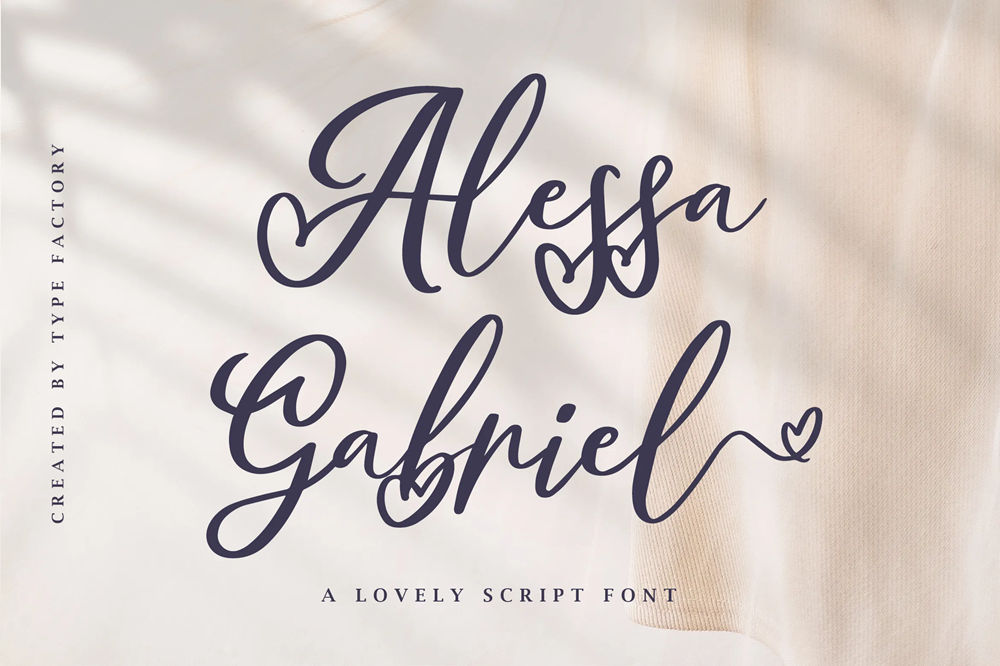
Alessa Gabriel is an elegant, classy script font that adds a refined, romantic touch to any wedding card design.
2. Circle Love
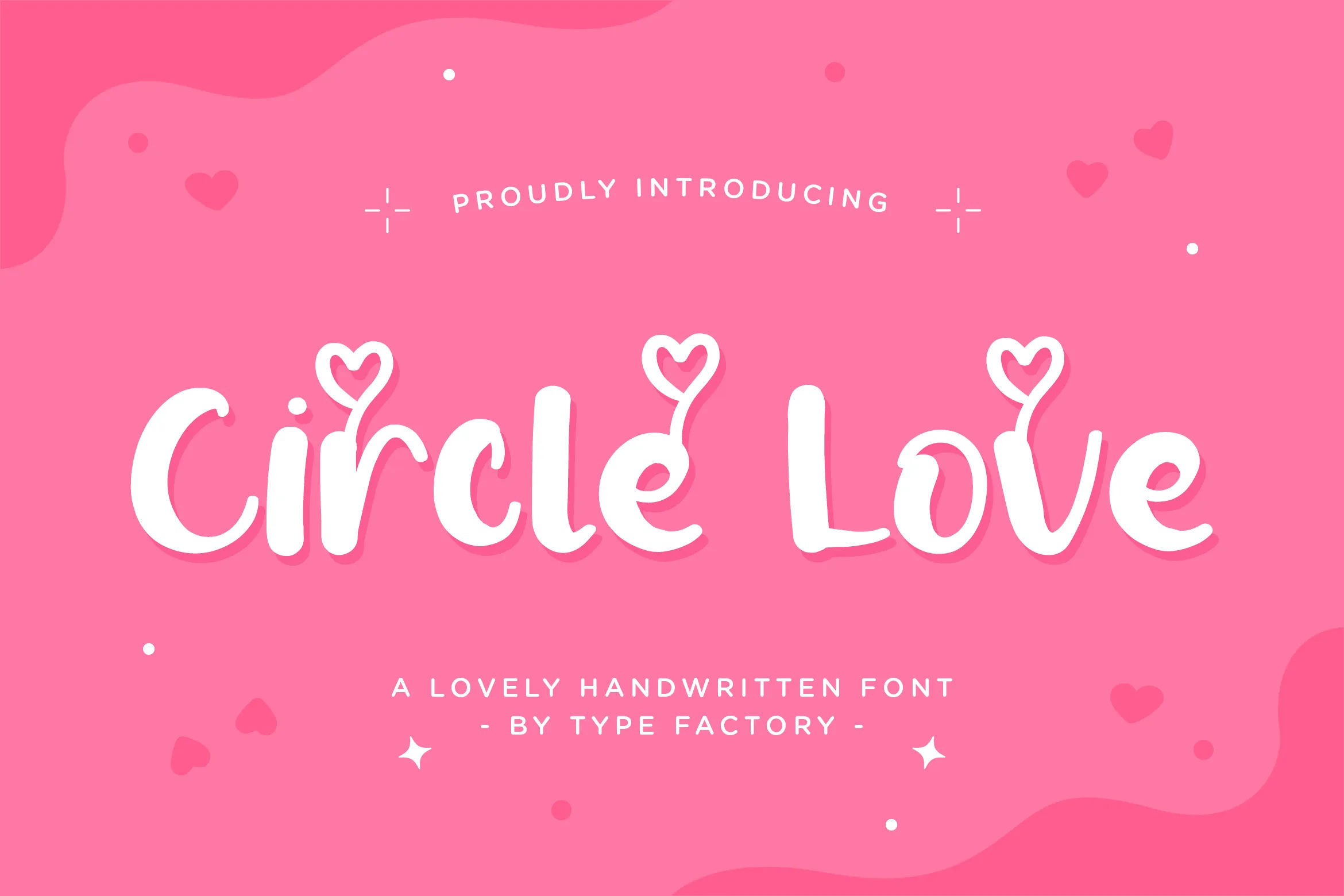
Circle Love is a beautiful handwritten typeface that brings a natural, elegant touch to any wedding card design.
3. Pinasta
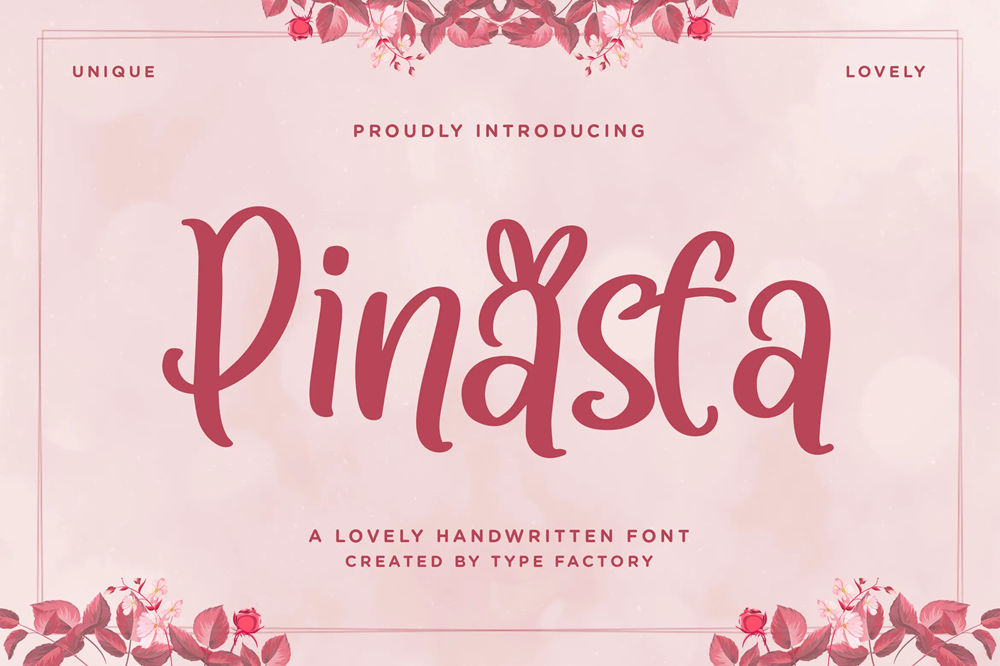
Pinasta is a lovely handwritten font that adds a sweet and charming touch to any wedding card design.
Also Read: 30 Grief Quotes to Express Your Feelings
4. Sweet June
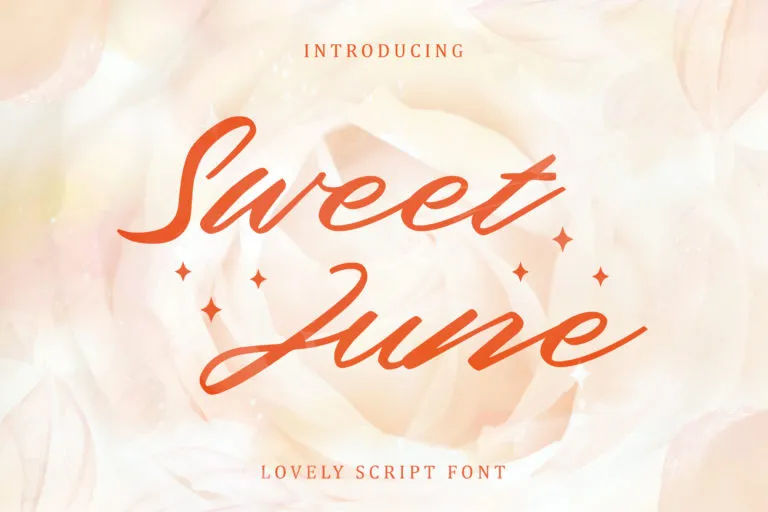
Sweet June is a lovely script font that brings a naturally elegant touch to any wedding card design.
5. Weloved
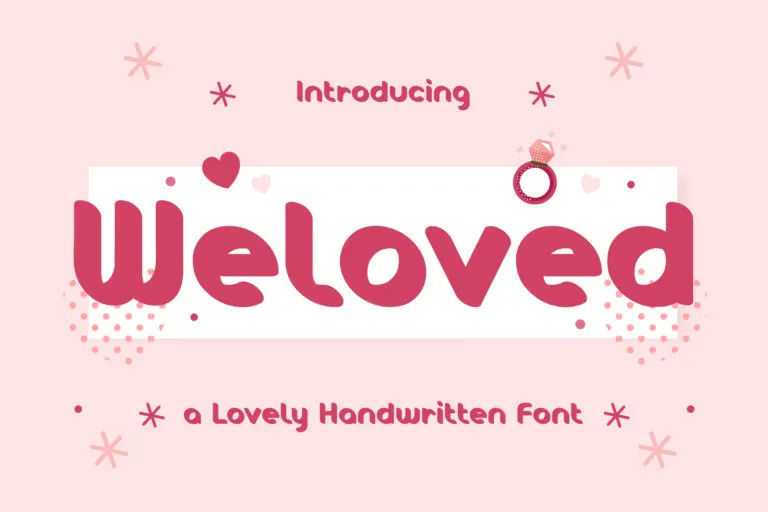
Weloved is a bold and romantic display font that adds a striking, heartfelt touch to any wedding card design.
6. Charmelya
Charmelya is a lovely handwritten typeface that brings a soft, romantic touch to any wedding card design.
7. Aesthem
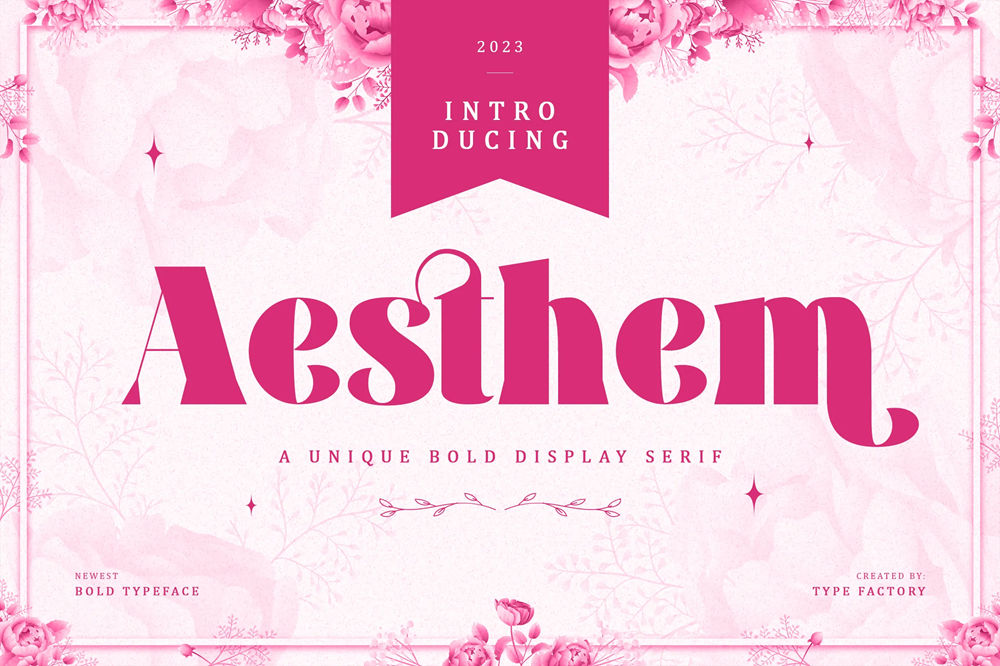
Aesthem is a bold, elegant serif that adds a sophisticated, modern statement to any wedding card design.